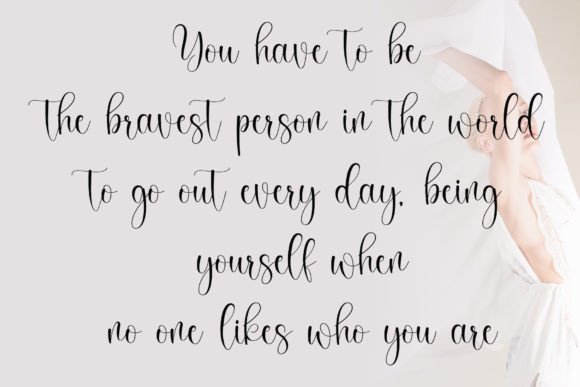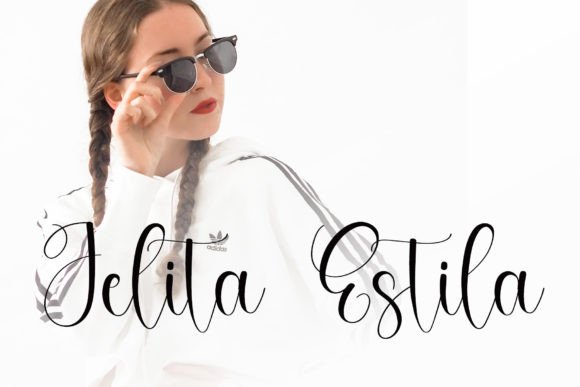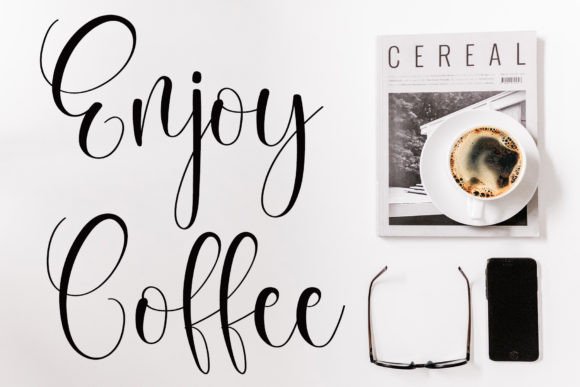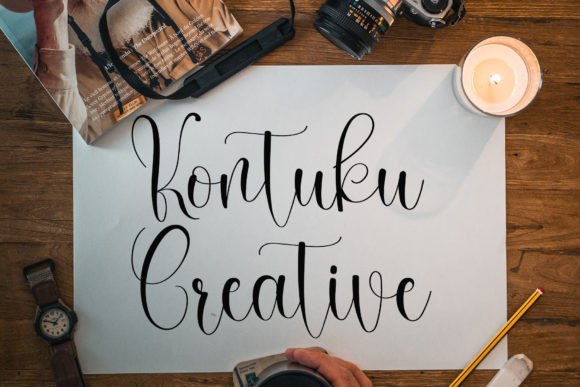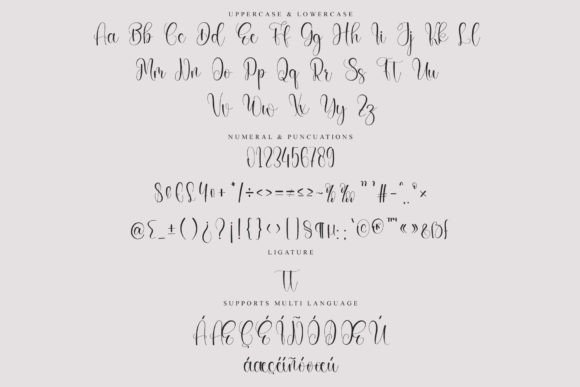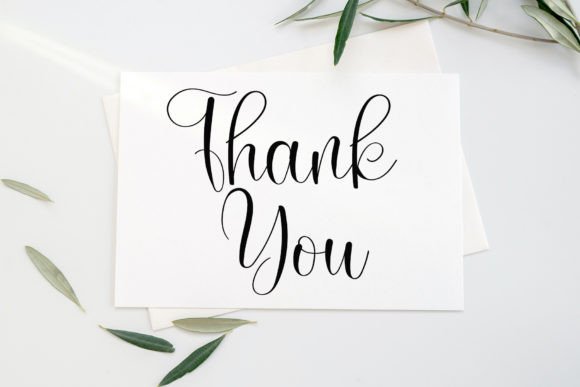
The Bride Font: Elevating Your Designs with Elegance
Have you ever been in the middle of a design project, and suddenly, you’re stuck on finding the perfect font? I recall a particularly stressful experience when a client requested a custom wedding invitation design, and I was determined to find a font that would make it truly unforgettable. That’s when I discovered the Bride font – a stylish and modern handwritten font that instantly elevated my design game!
An Honest Review of Bride Font
As a designer, I’m always on the lookout for fonts that can bring a touch of elegance and sophistication to my projects. The Bride font did not disappoint! Here’s what I love about it:
- ✨ Stylish and modern handwritten aesthetic
- ✅ Highly versatile and suitable for various applications, from greeting cards to headlines, branding, and packaging
- 💫 Exquisite touch to each of your creations, guaranteed!
However, no font is perfect, and I did notice a few minor quirks:
- 🤔 Some characters may appear a bit cramped at smaller font sizes
- ⚠️ Limited availability of language support (but this might not be a concern for English-based designs)
The Story Behind Bride Font
Although I couldn’t find any information on the exact design process, I like to imagine that the creator of Bride font was inspired by the romance and beauty of wedding stationery. Perhaps they wanted to craft a font that would make couples feel special on their big day. Whatever the story, it’s clear that Bride font has been carefully crafted to bring a touch of elegance to your designs.
| What type of designs is Bride font best suited for? | Bride font is highly versatile and can be used for a wide range of designs, including greeting cards, headlines, branding, packaging, and more. |
| Is Bride font suitable for body text? | While Bride font is beautiful, it’s best used for headlines, titles, or short paragraphs. For body text, a more traditional font might be more readable. |